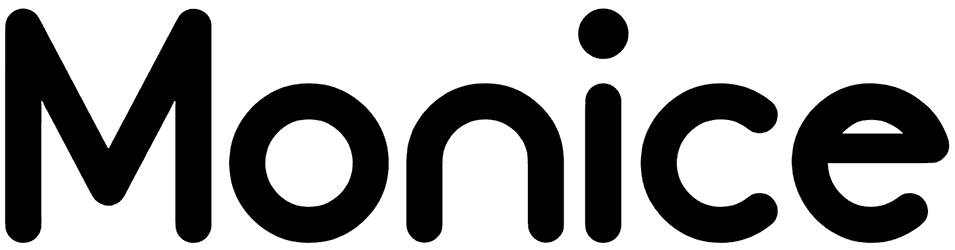
Monice Font
When you look at the Monice font, its minimal style seems pleasant. This sans serif font is offered in three versions, giving you a range of opportunities.
You may use the Monice font for various cases, such as social media posts, websites, and applications; however, it does not support numbers and symbols. This modern font has an elegant yet simple style that seems entertaining to the viewers. So, do not hesitate to download the Monice font now.